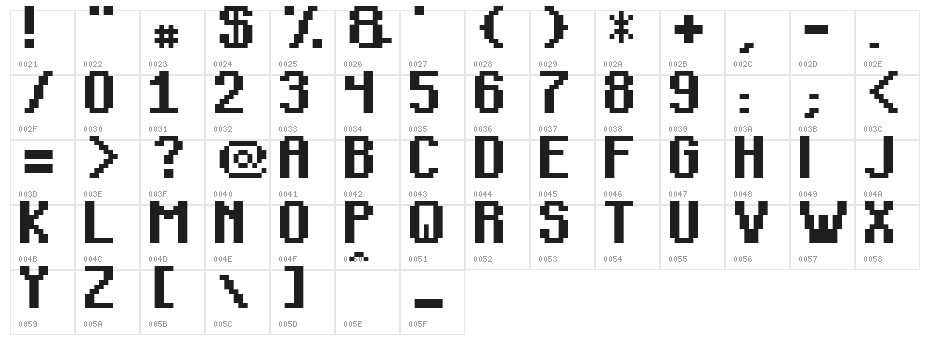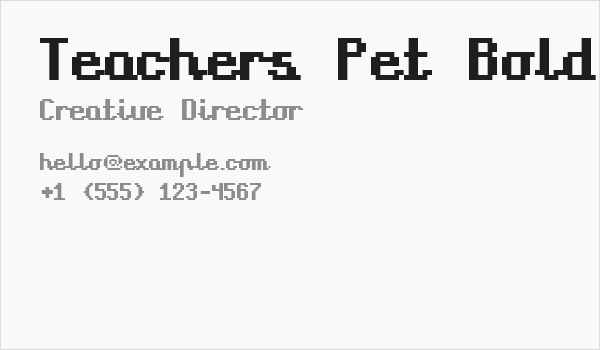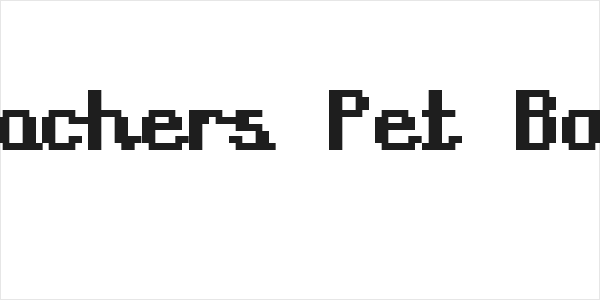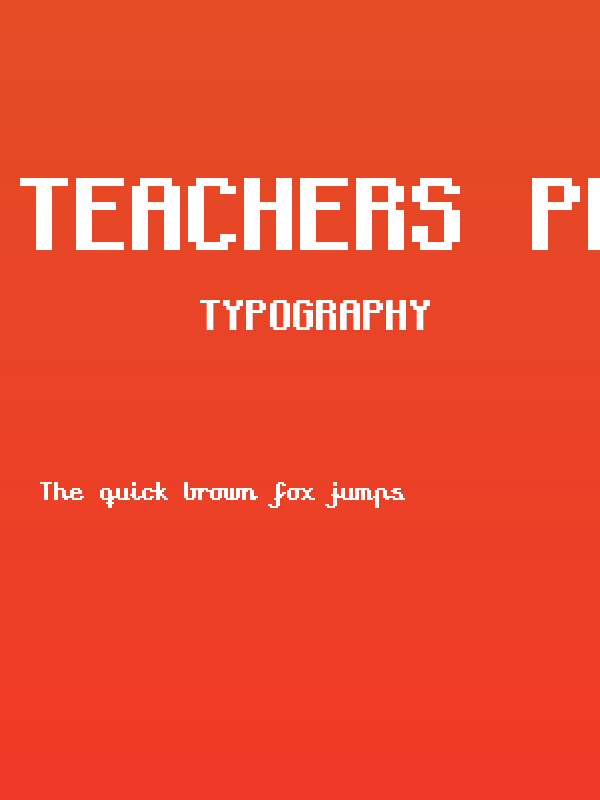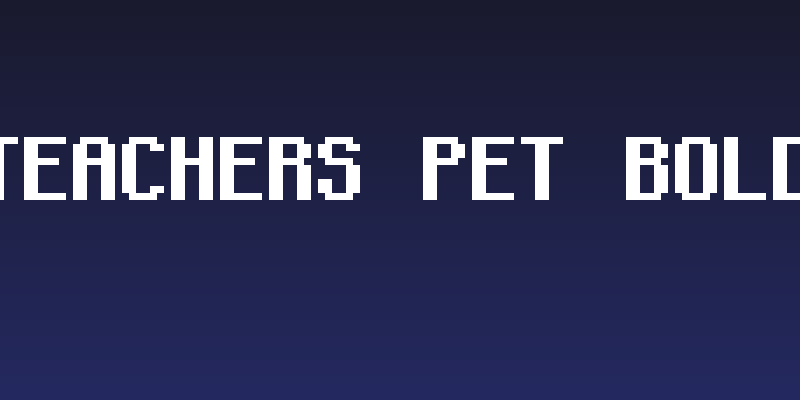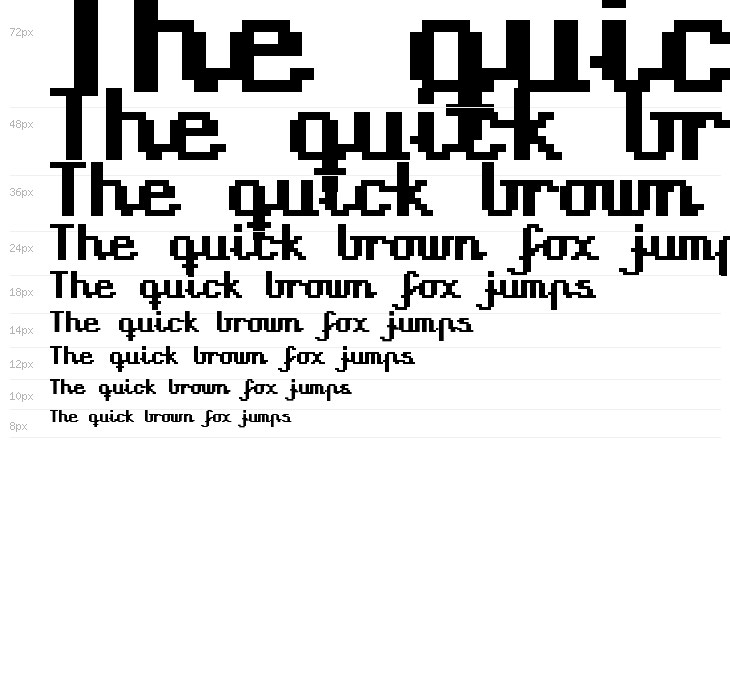
Teachers Pet Bold Font
Teachers Pet Bold Description
This font features a bold, pixelated style reminiscent of early digital typography. The uppercase letters are blocky and geometric, with consistent stroke widths that give them a sturdy appearance. The lowercase letters maintain a similar pixelated aesthetic, with some characters like 'g' and 'j' having distinctive descenders that add a touch of uniqueness. Numbers are clear and legible, following the same pixelated design, making them suitable for digital displays. Special characters are included, maintaining the overall blocky style, ensuring consistency across all glyphs. This font's retro digital look makes it ideal for projects that aim to evoke nostalgia or a vintage tech feel.
| Use Case | Headlines, Logos, Digital displays |
| Proposed Projects | Ideal for retro video games, digital art projects, tech-themed posters, and nostalgic branding. |